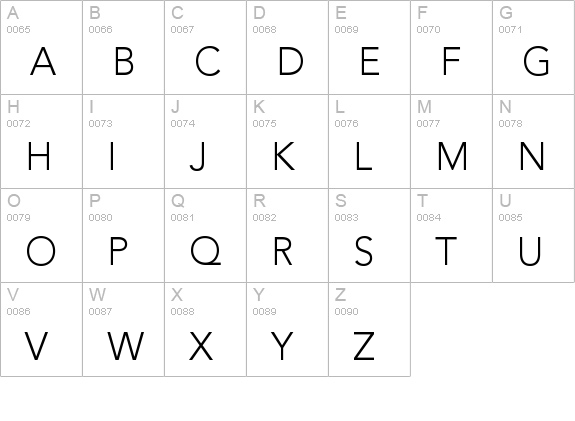
Avenir Std Light Font Details
Avenir Std Light is a refined, elegant variant in the Avenir typeface family \xE2\x80\x94 well suited to elegant body text, refined sub-headings, and luxury branding.
Avenir Std Light is a beautifully crafted and elegant font that exudes sophistication and modernity. With its clean lines and subtle curves, this font is perfect for conveying a sense of simplicity and refinement in any design project. The light weight of Avenir Std Light adds a delicate touch to text, making it ideal for conveying a sense of subtlety and grace.